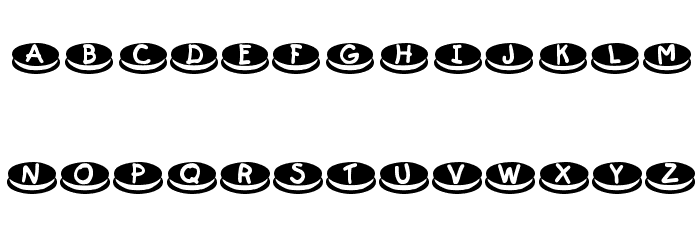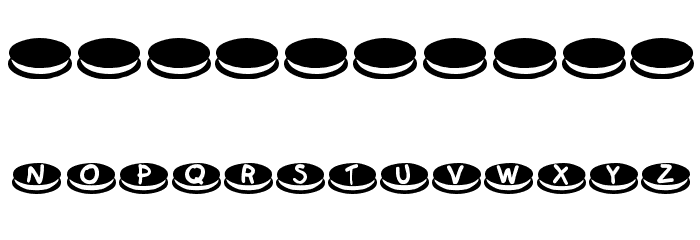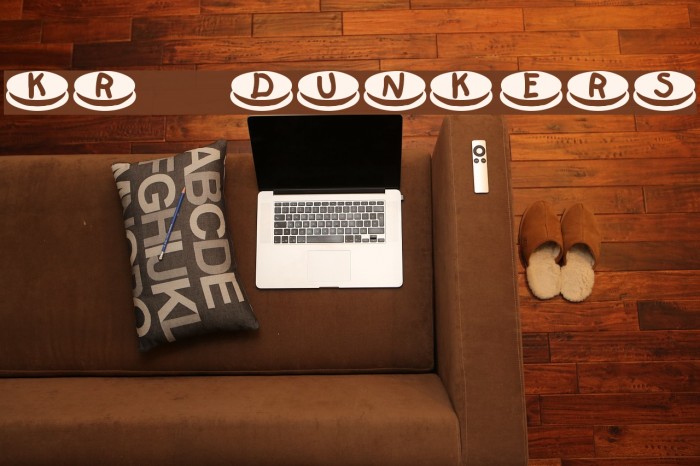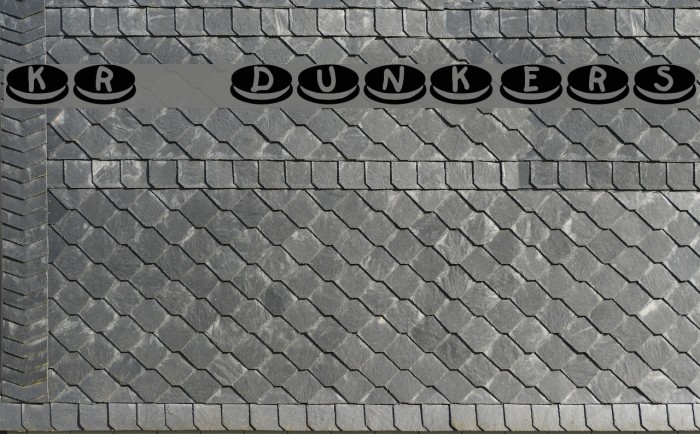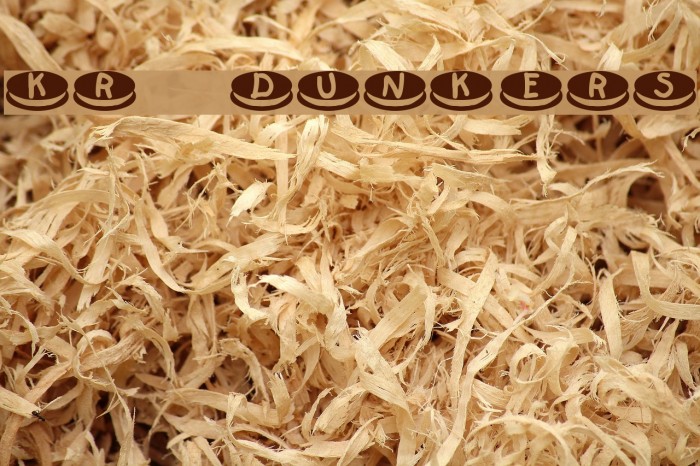
KR Dunkers Font
This playful and unique font features characters that resemble sandwich cookies, with each letter placed inside a round, layered shape. The letters are bold and white, standing out against the dark, circular background. This design gives the font a whimsical and fun appearance, making it ideal for projects that require a touch of creativity and humor. The font is highly decorative, with each character maintaining a consistent style that enhances its visual appeal. The overall look is both modern and playful, capturing attention with its distinctive design.
A playful, cookie-inspired decorative font with bold, white letters on dark, round backgrounds.
- Proposed Projects: Ideal for children's book covers, playful branding, food-related advertisements, and creative event invitations.
- Overall Style: Playful, Modern, Decorative